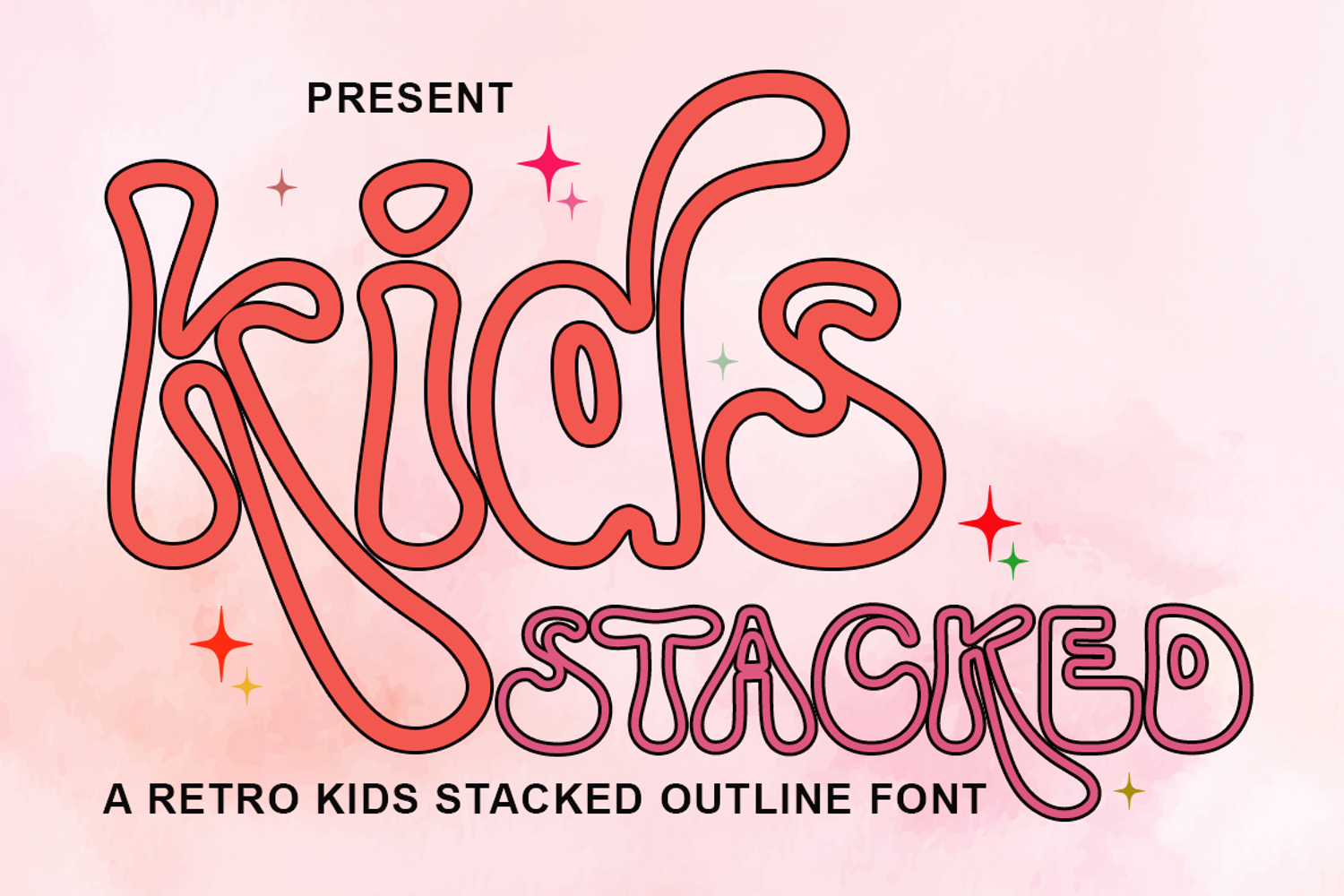
Kids Stacked Outline
KIDS STACKED OUTLINE
Kids Stacked is a fun/retro handwritten font.
Layer these fonts to create fun and unique words and quotes!
This font is perfect for retro designs, ProCreate, branding, t-shirts, logos, ProCreate, stickers, Cricut projects, Instagram, social media, and more!